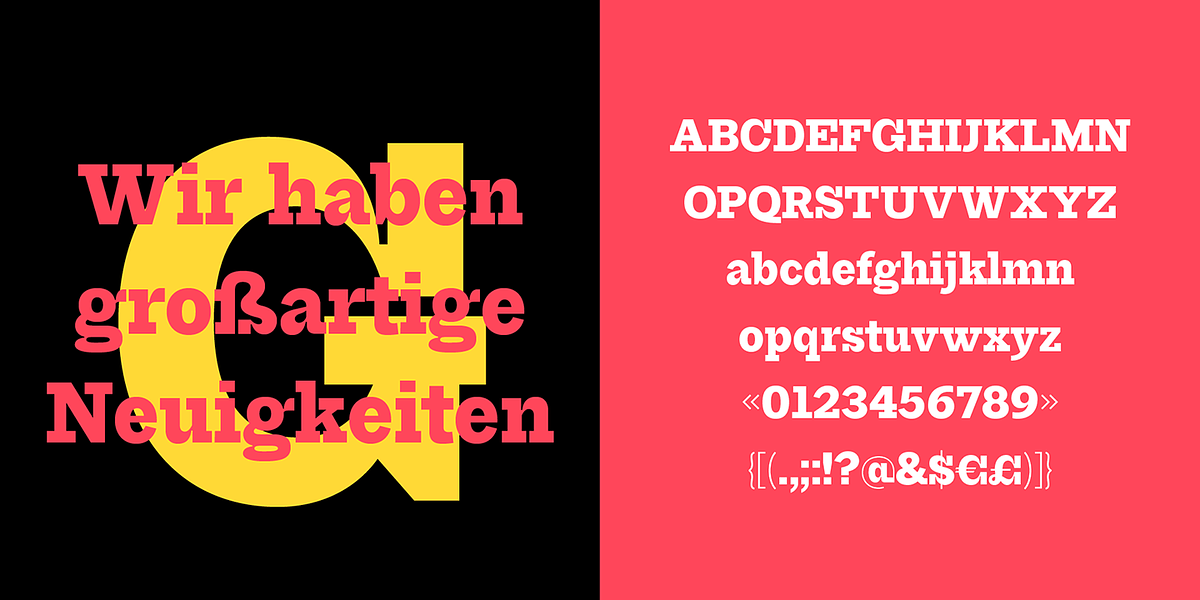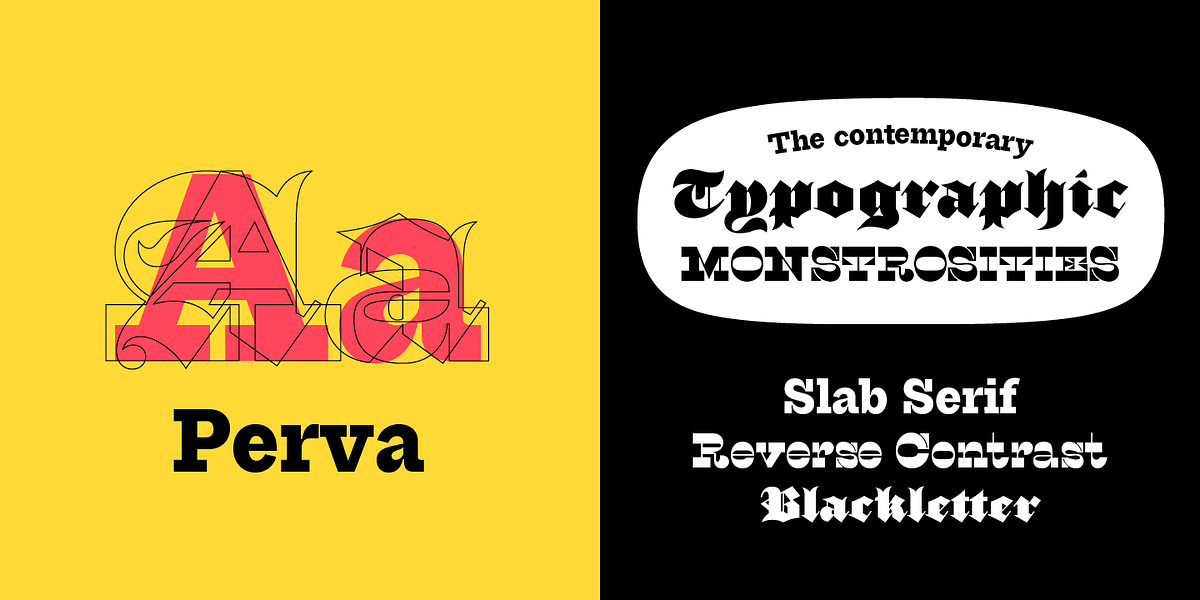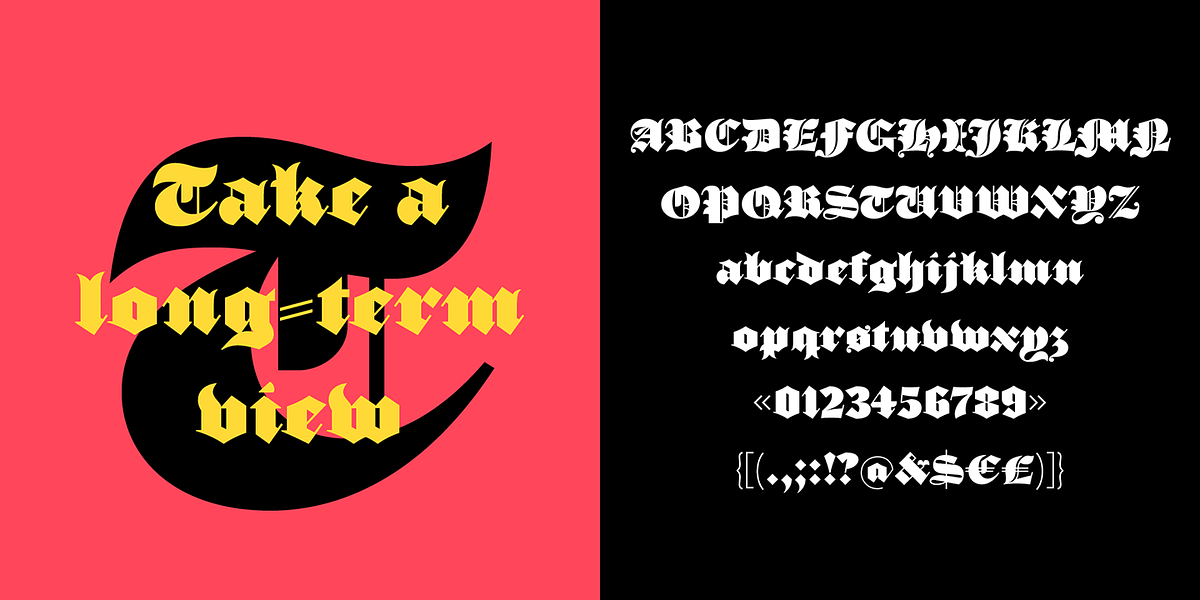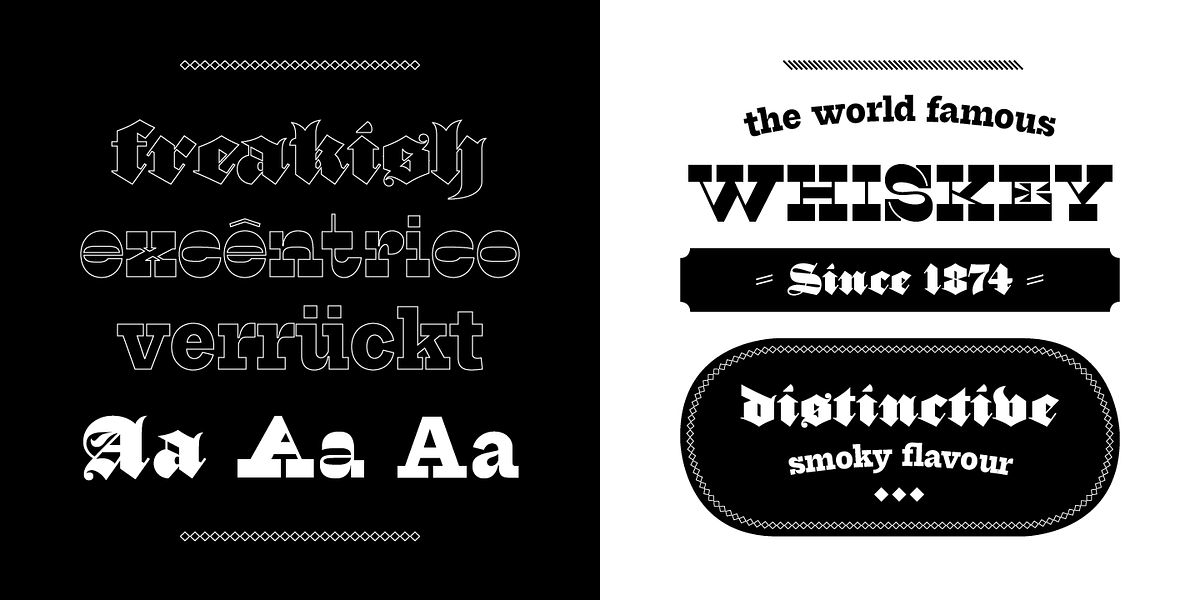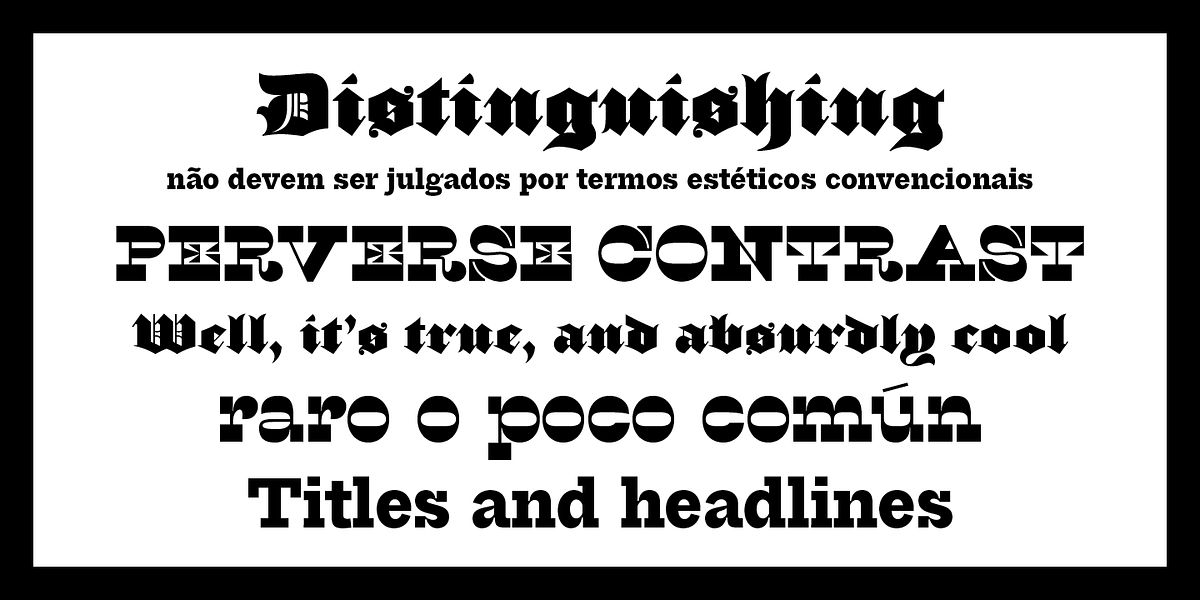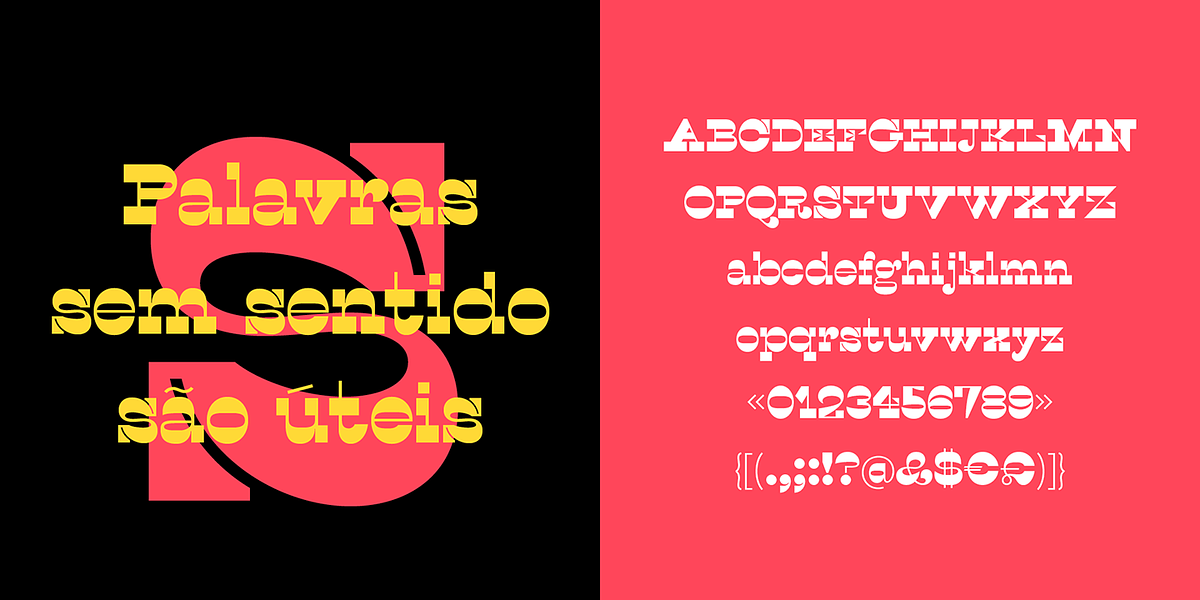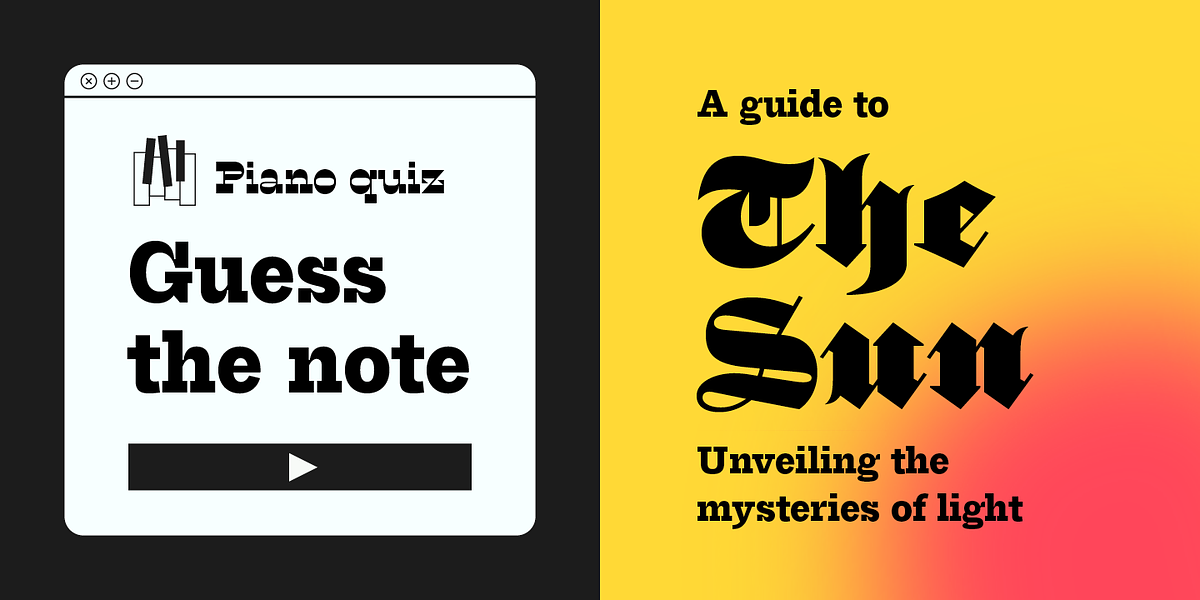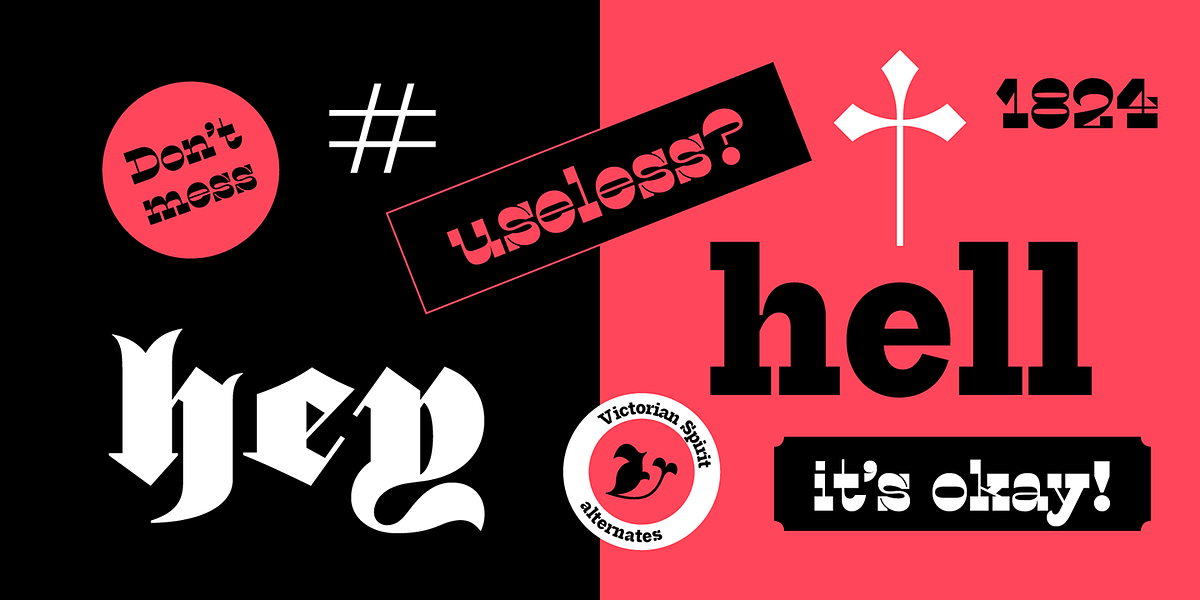
Perva
Perva is a suite of three eye-catching fonts inspired by display types from the 19th century. This unconventional family has three different font styles that can be used individually or combined to build a playfulness multi-typeface design system. It is suitable for titling, posters headlines, book covers, packaging, social media, and branding. Perva brings together a Slab serif font, a.k.a Antique or Egyptian; a Reverse-contrast or Italian; and an Old English Blackletter.
The design is inspired by the display types listed as “Typographic monstrosities” in Thomas C. Hansard’s book Typographia (1825). What he found absurd was understood here as interesting and enjoyable to introduce a contemporary approach of the types widely sold by foundries such as Bruce’s New York Type-Foundry and Caslon Foundry.
Each of the three fonts holds around 400 glyphs, covering the languages of Northern, Western, Central, and Southern Europe. Opentype features include case-sensitive forms and a couple of alternates for the Blackletter style.